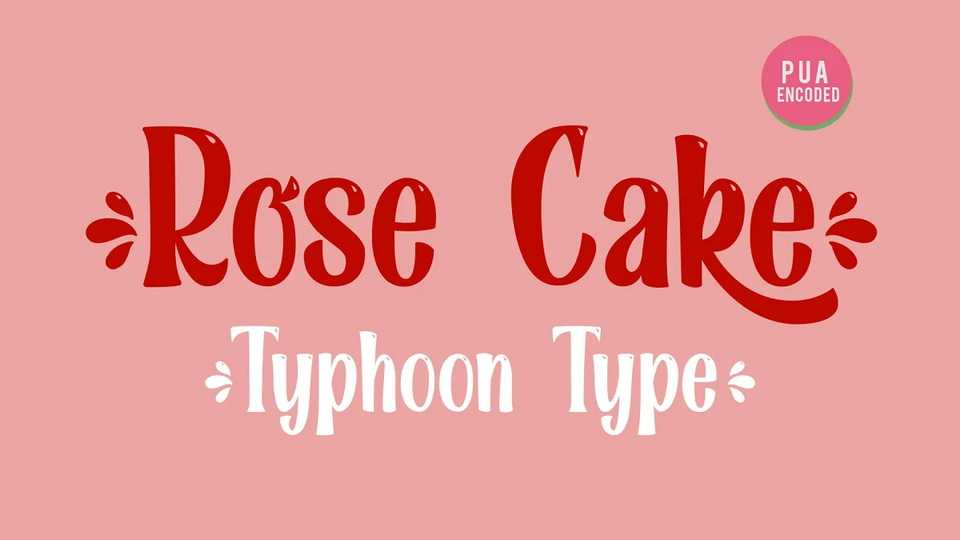
Download Rose Cake font, a lovely decorative hand lettered typeface. Rose Cake is perfect for logos, name tag, advertising, product packaging, clothing, social media and greeting cards.
Designer: TyphoonType